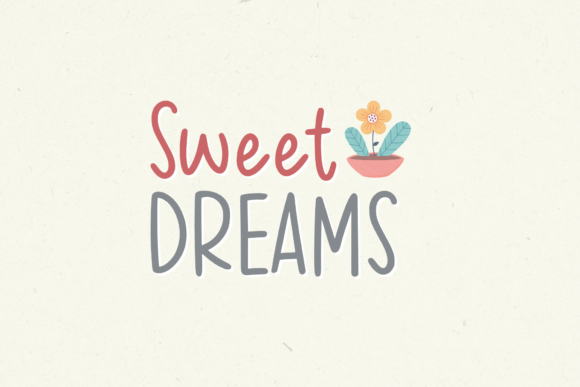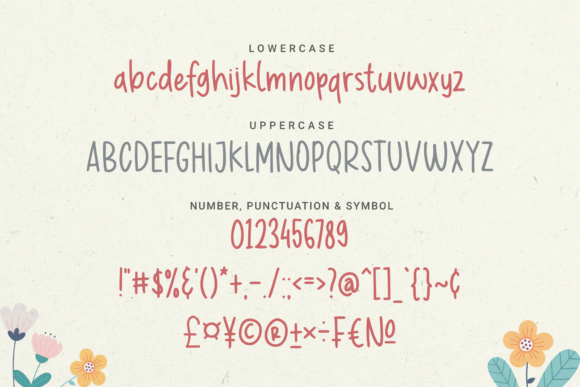
Simply Dreams Font
db-ku.com - Script & Handwritten -- Simply Dreams is a cool and friendly handwritten font. It can easily be matched to an incredibly large set of projects, so add it to your creative ideas and notice how it makes them stand out!